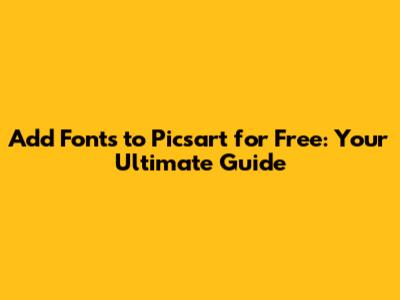
- Add a Text Layer: Tap on the 'Text' tool (it looks like a 'T' icon) from the bottom toolbar.
- Type Your Text: Enter the text you want to add to your image.
- Access Font Options: After typing, you'll see the text editing options. Tap on the font selection area (usually shows the current font name).
- Find the 'Add Font' or '+' Icon: In the font menu, look for an option to add more fonts. This is often represented by a '+' icon or a button labeled 'Add Fonts' or 'My Fonts'. It's usually located at the top or side of the font list.
- Confirm Import: Picsart might show a confirmation prompt. Confirm that you want to import the font. The font should now appear in your 'My Fonts' or a recently imported list within Picsart.
- Apply the Font: Select your newly imported font from the list, and voilà! Your text will now be displayed in your custom font. You can resize, rotate, and style it as needed.
- Can't Find the 'Add Font' Button: Ensure you're looking in the correct place. After adding text and tapping the font selection, the 'Add Font' or '+' icon is usually quite prominent. If you're still stuck, try updating the Picsart app to the latest version, as UI elements can sometimes change with updates.
- Font Not Available After Import: Sometimes, after importing, the font might not immediately appear in your main font list. Check under a specific 'My Fonts' or 'Custom Fonts' tab within the font menu. If it's still missing, try closing the font menu and reopening it, or force-close and relaunch the Picsart app.
- Match Font to Mood: Think about the message you want to convey. A script font might be great for a wedding invitation design, while a bold, blocky font is perfect for a gym poster. Consider the vibe of your photo and your overall message before picking a font. Does it need to feel elegant, playful, serious, or modern? Your font choice can drastically alter the perception of your image.
- Readability is King: No matter how cool a font looks, if people can't read it, it's not doing its job. Especially for longer text, opt for clear and legible fonts. Fancy decorative fonts are best used for short headlines or single words where their stylistic impact is maximized without sacrificing comprehension.